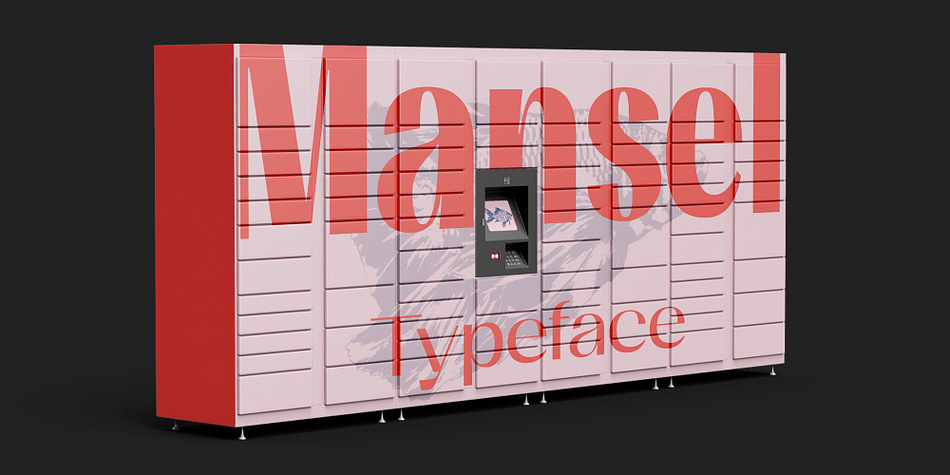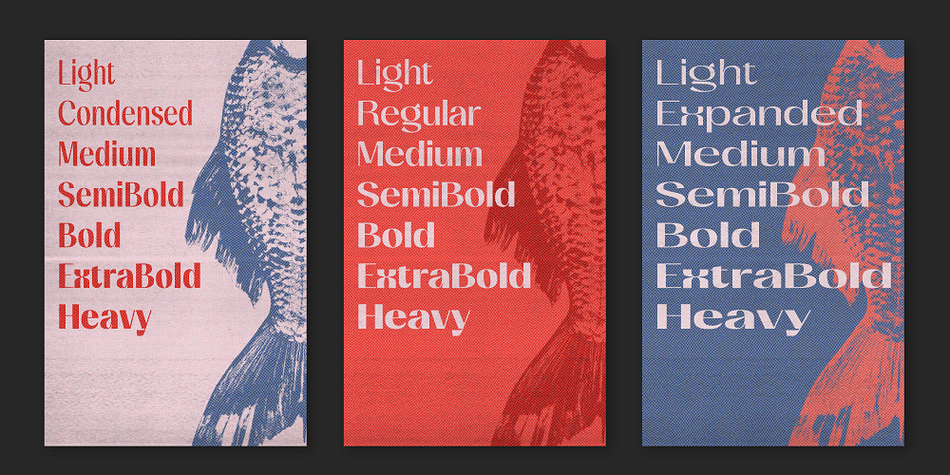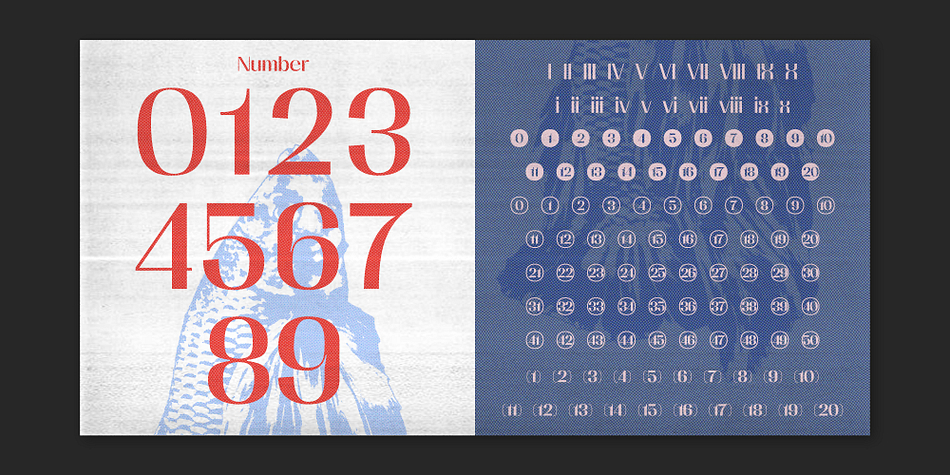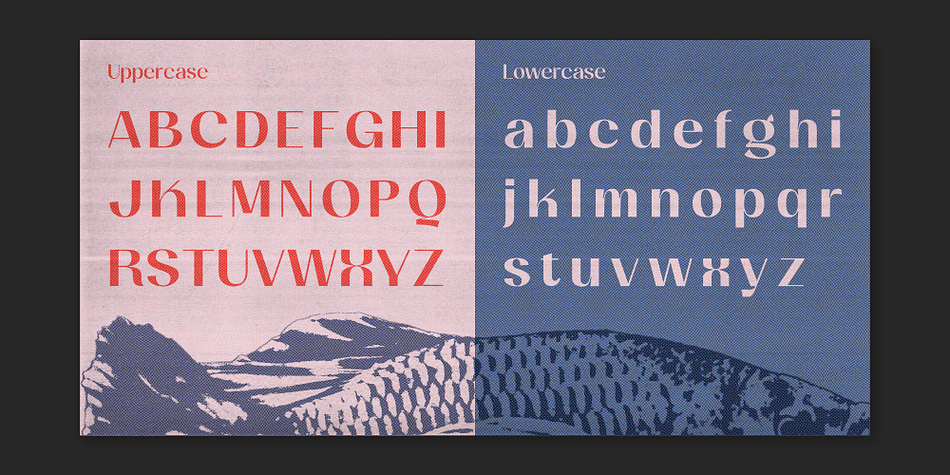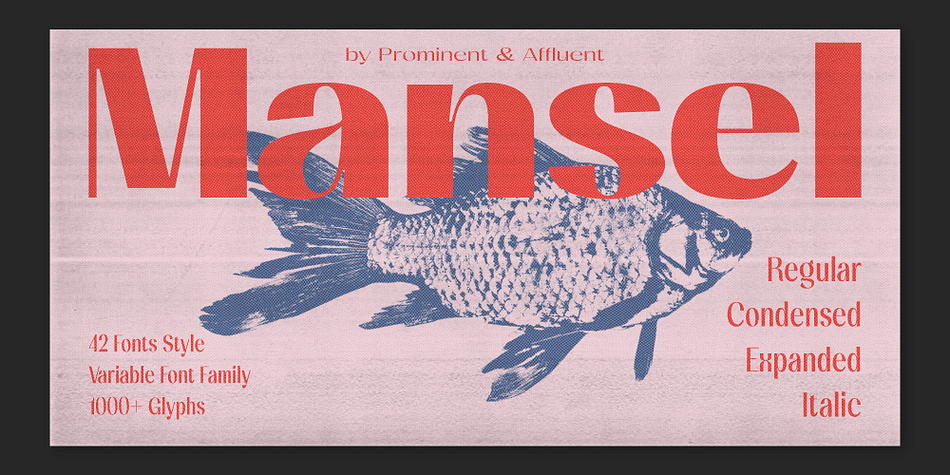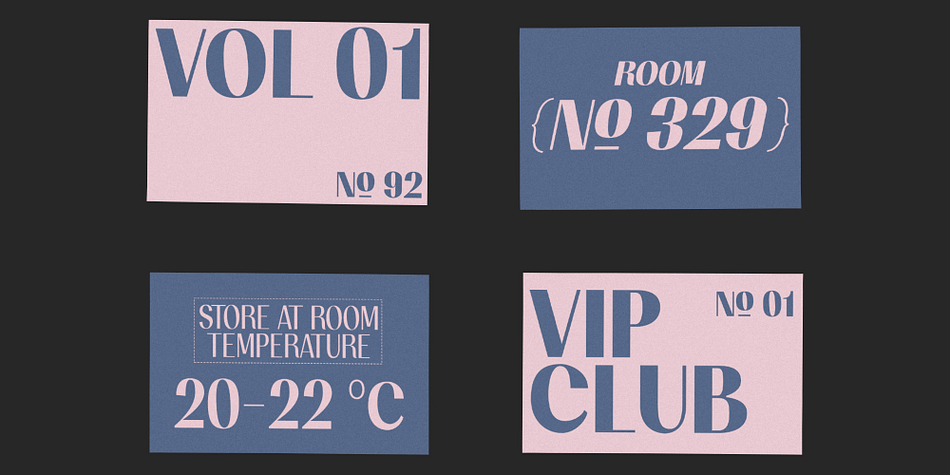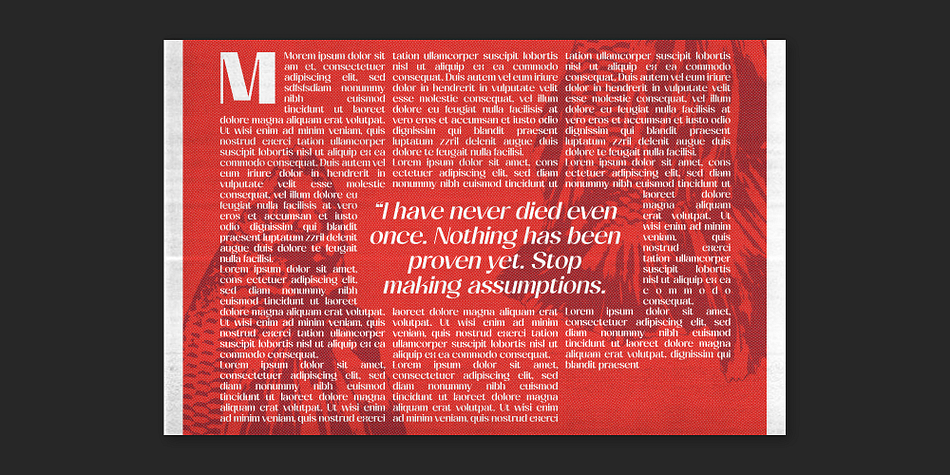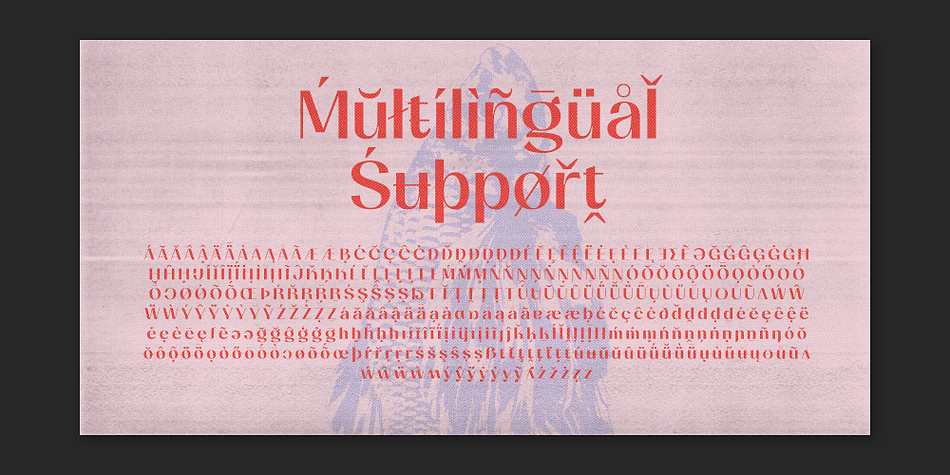
Mansel
Mansel is a sans serif font family. This typeface has forty-two styles and was published by Prominent & Affluent.
Mansel – an exquisite sans serif font that takes inspiration from retro design. Boasting an impressive range of weights, widths, and italic angles in both classic and variable formats, Mansel offers unparalleled flexibility for creating stunning visual compositions. With support for most Latin-based languages, this versatile font is perfect for professional projects with global reach.